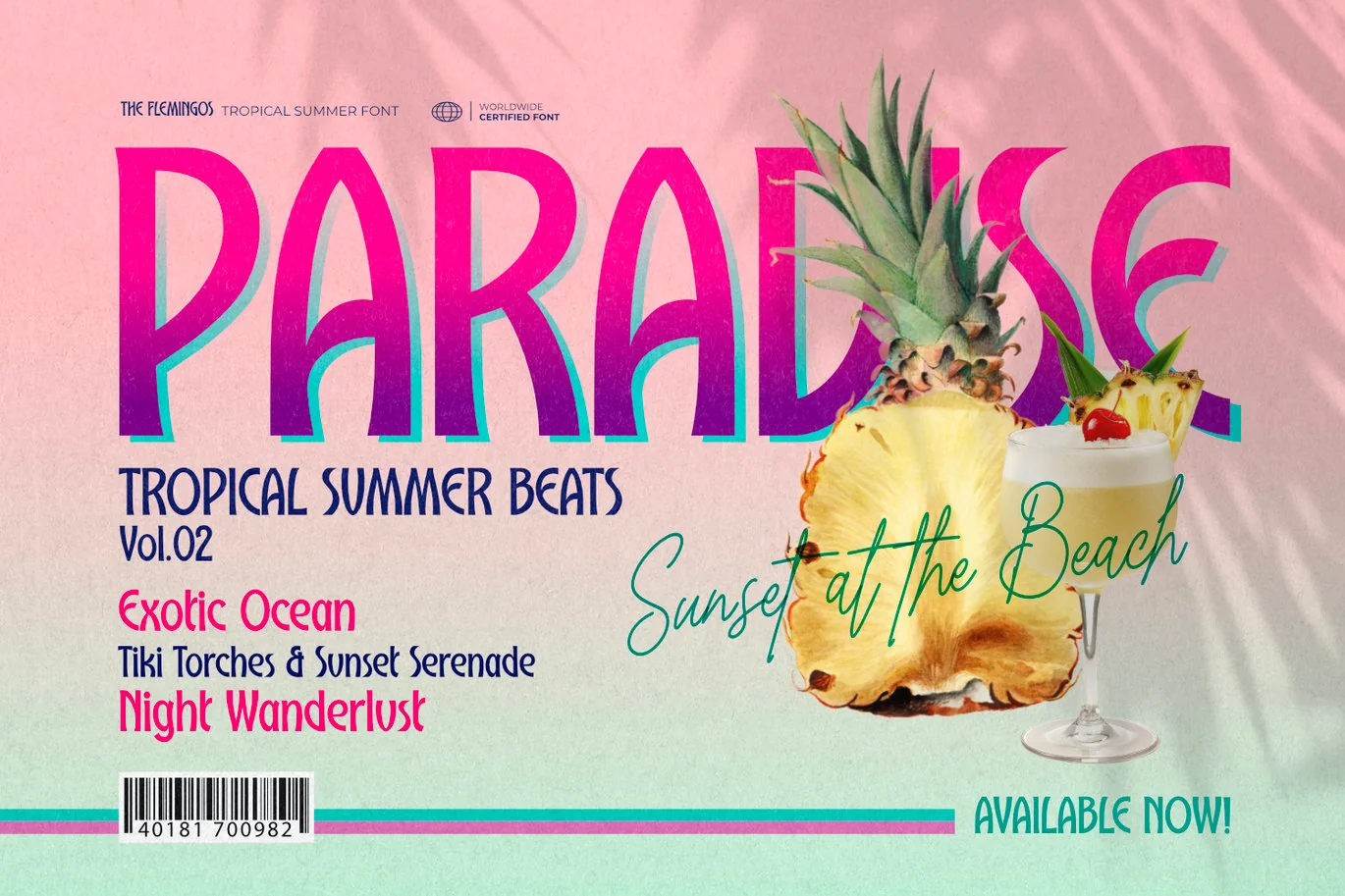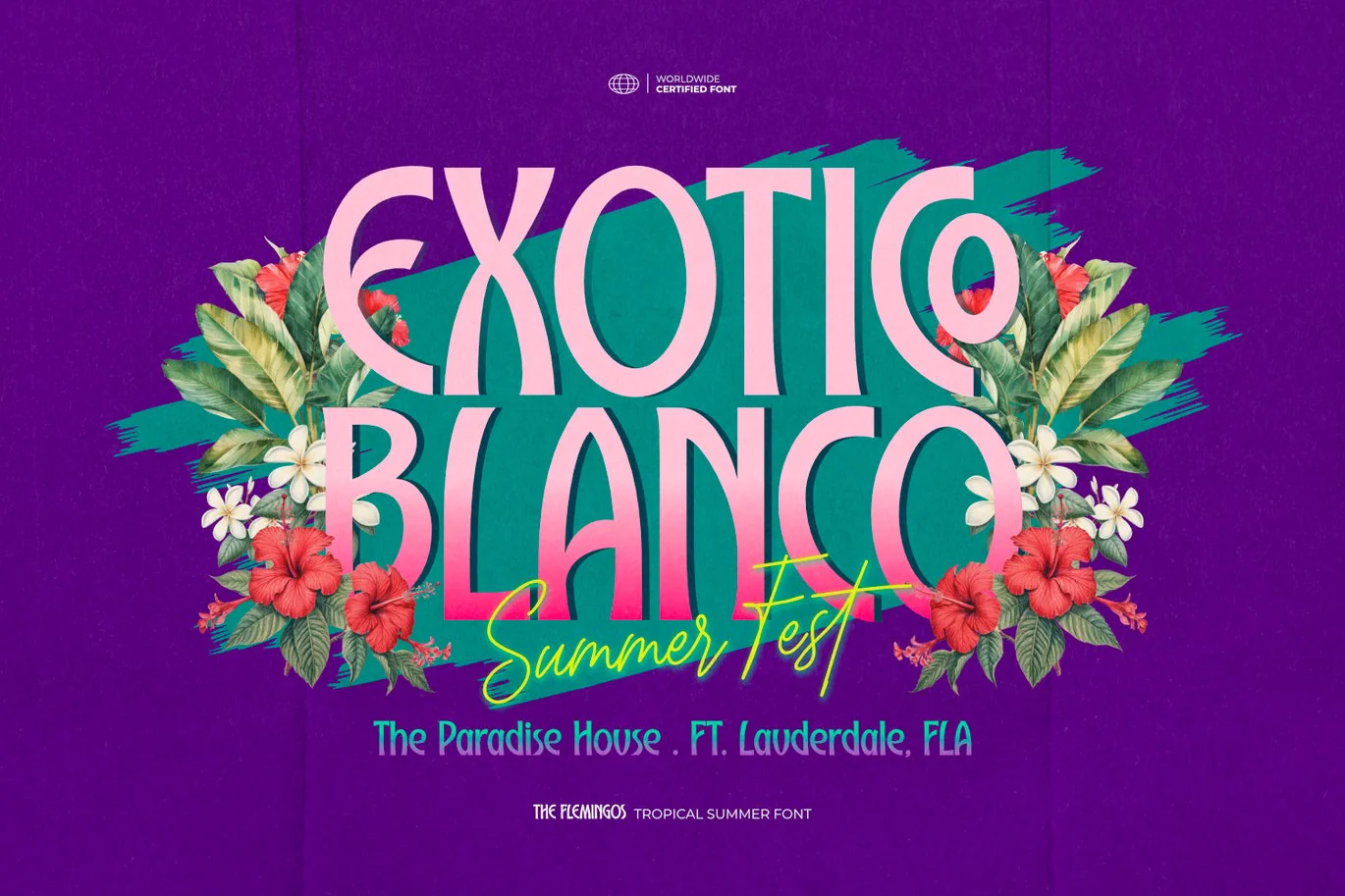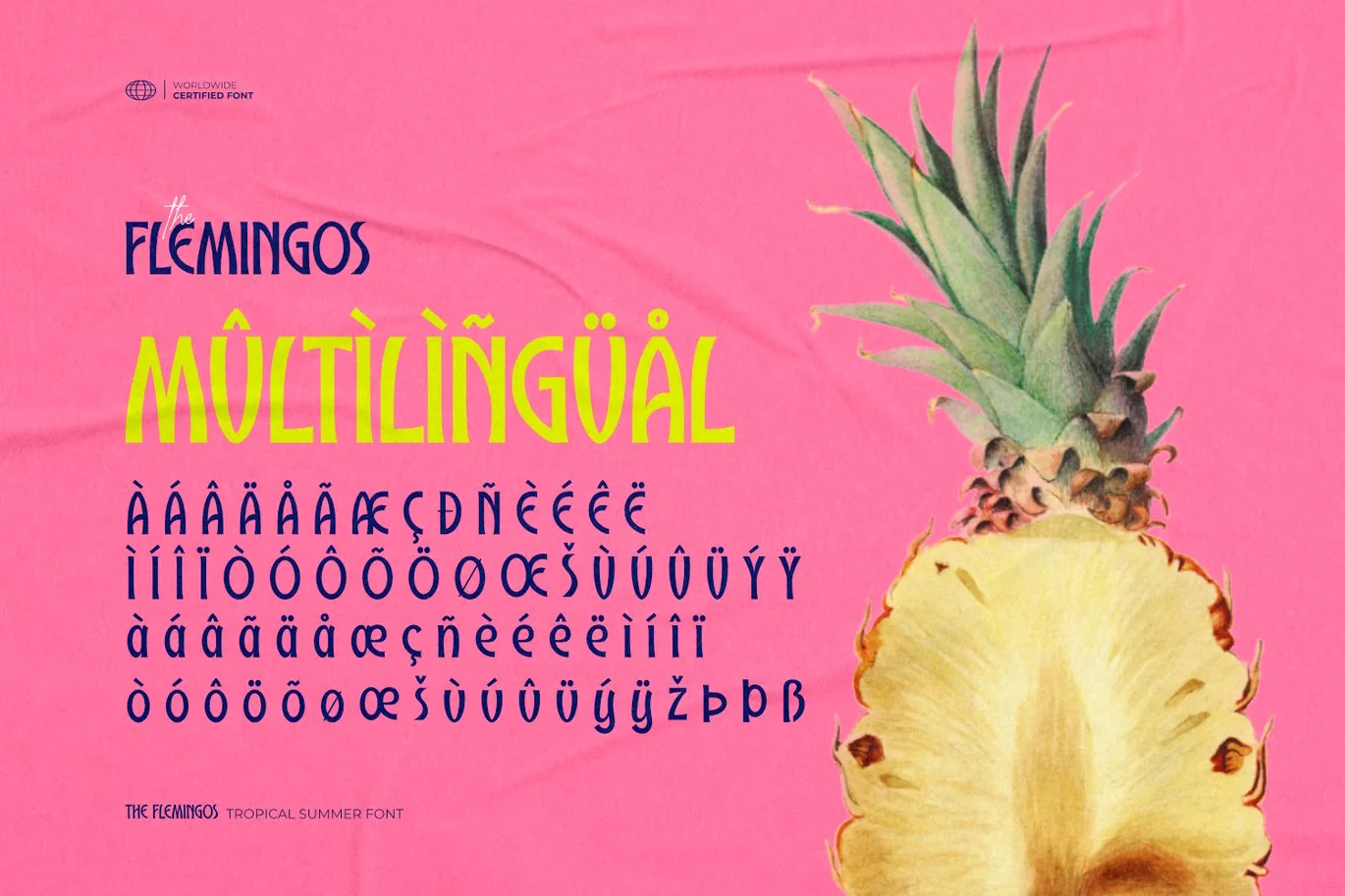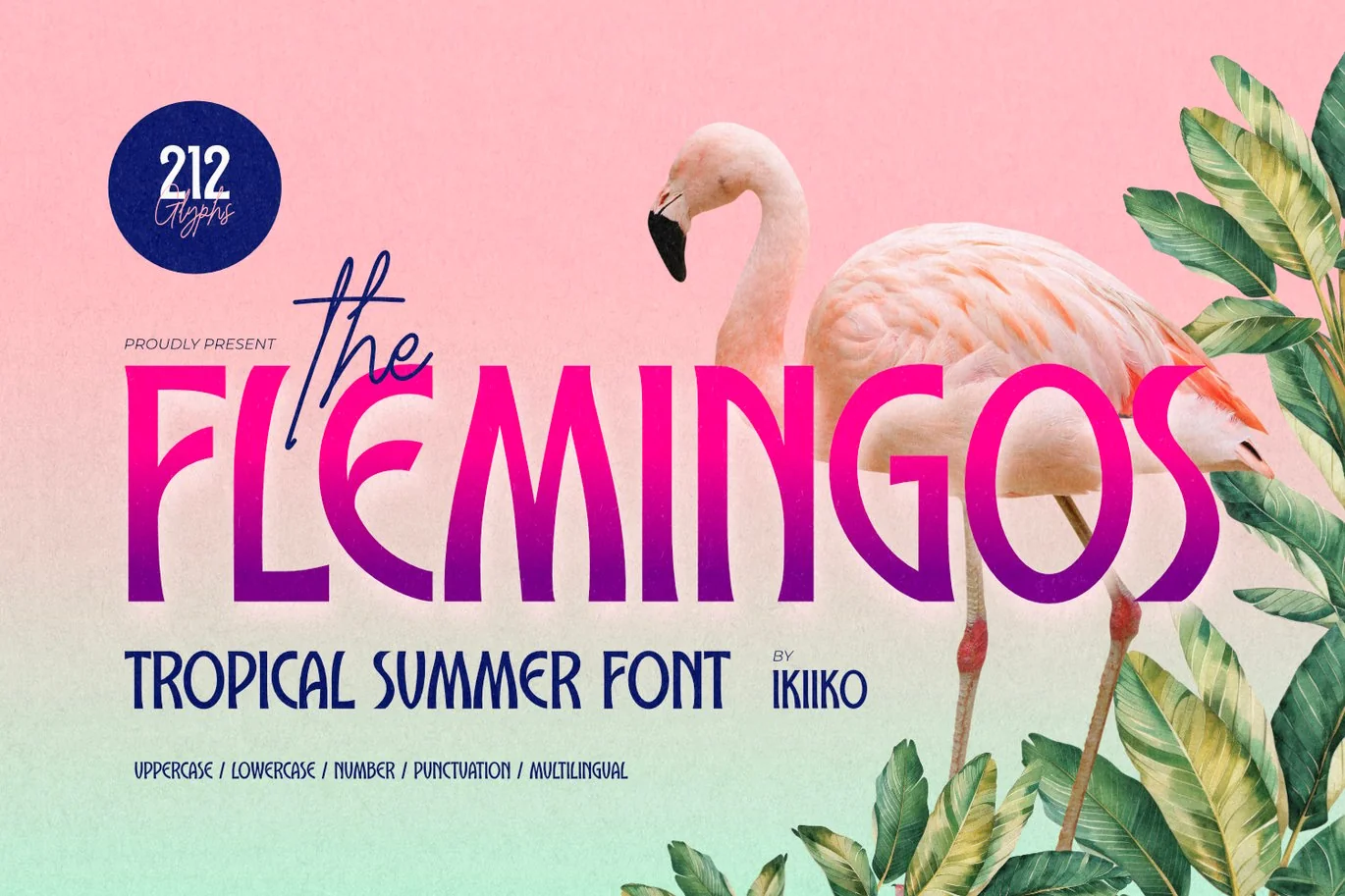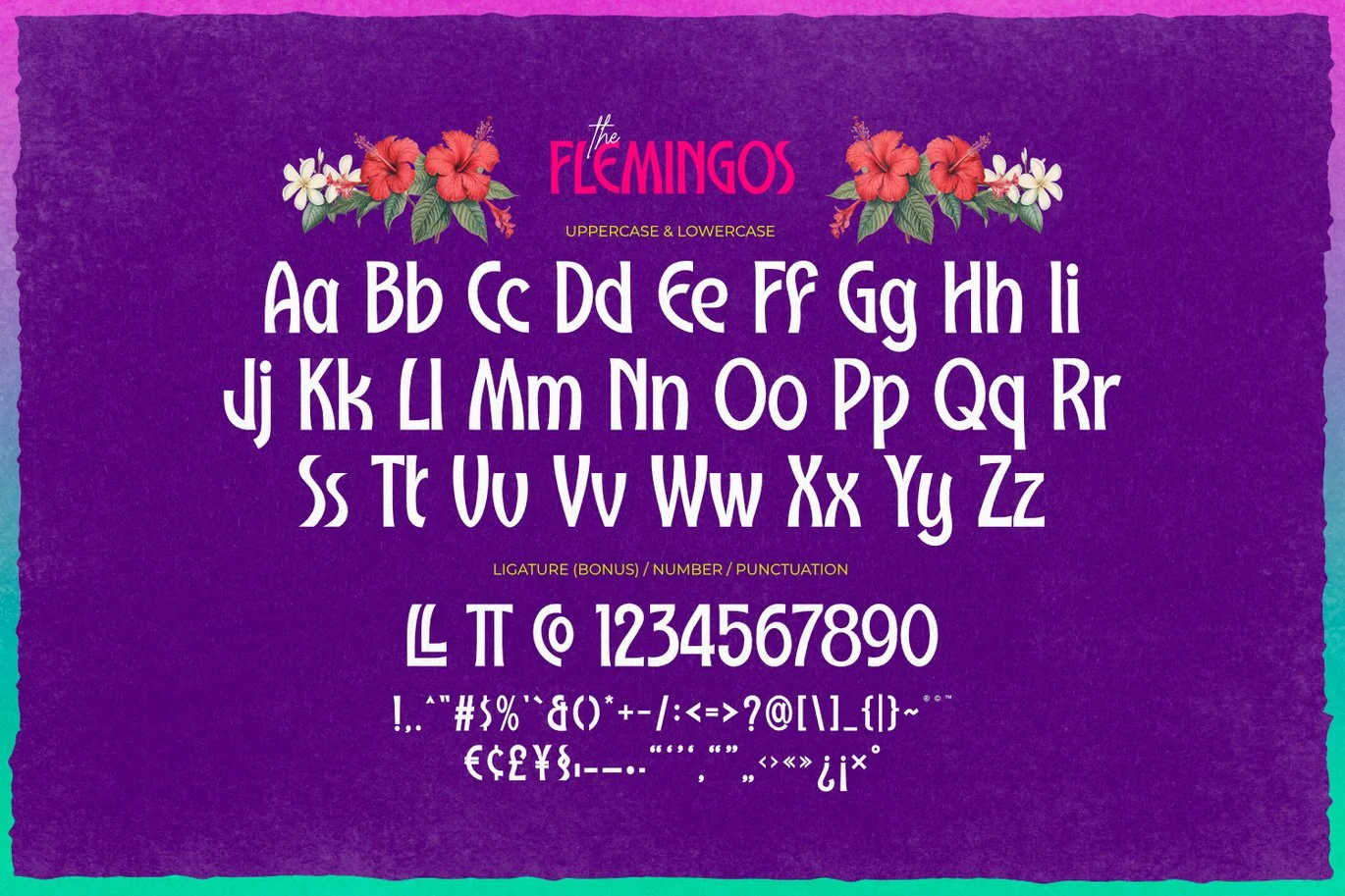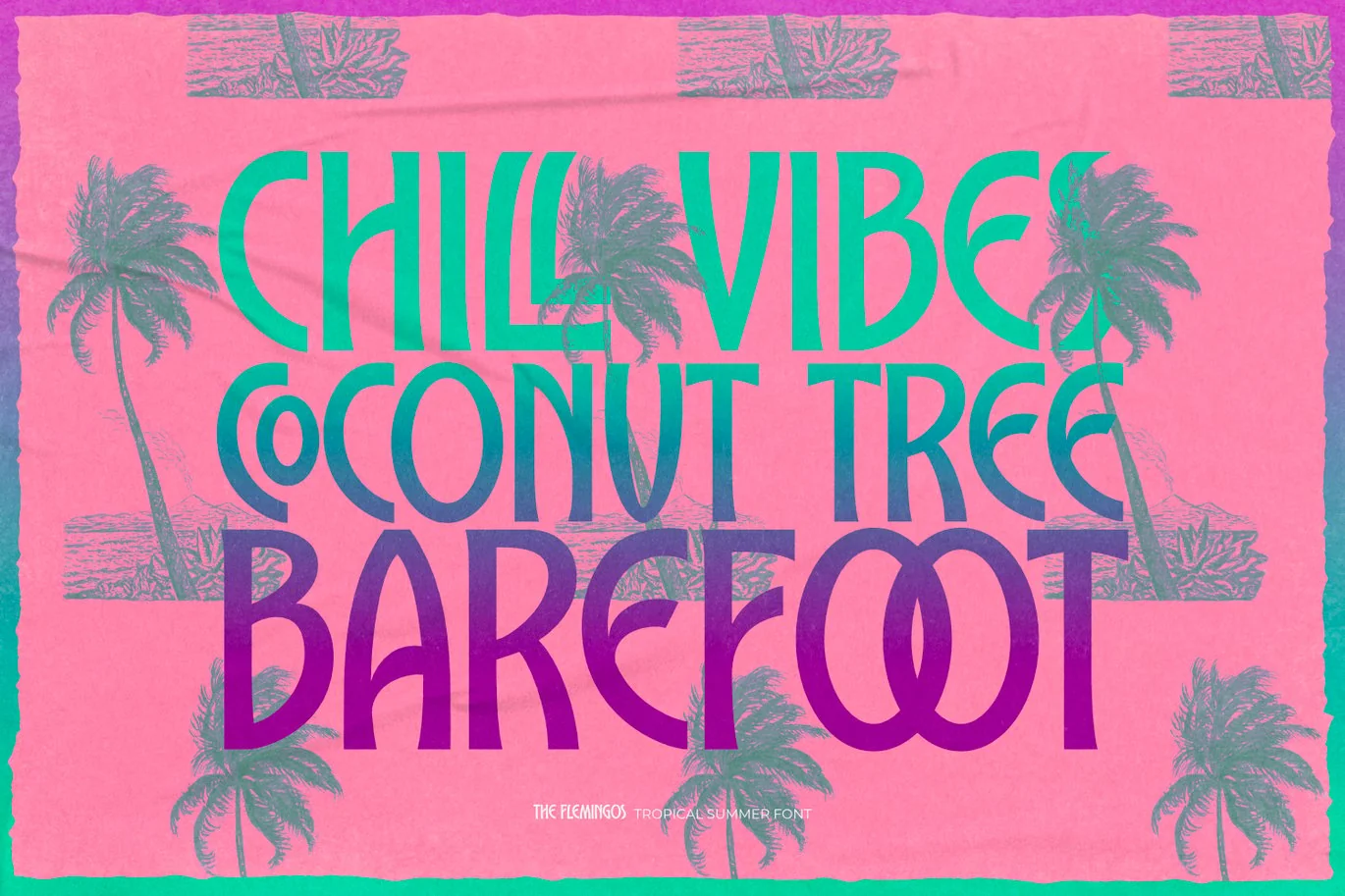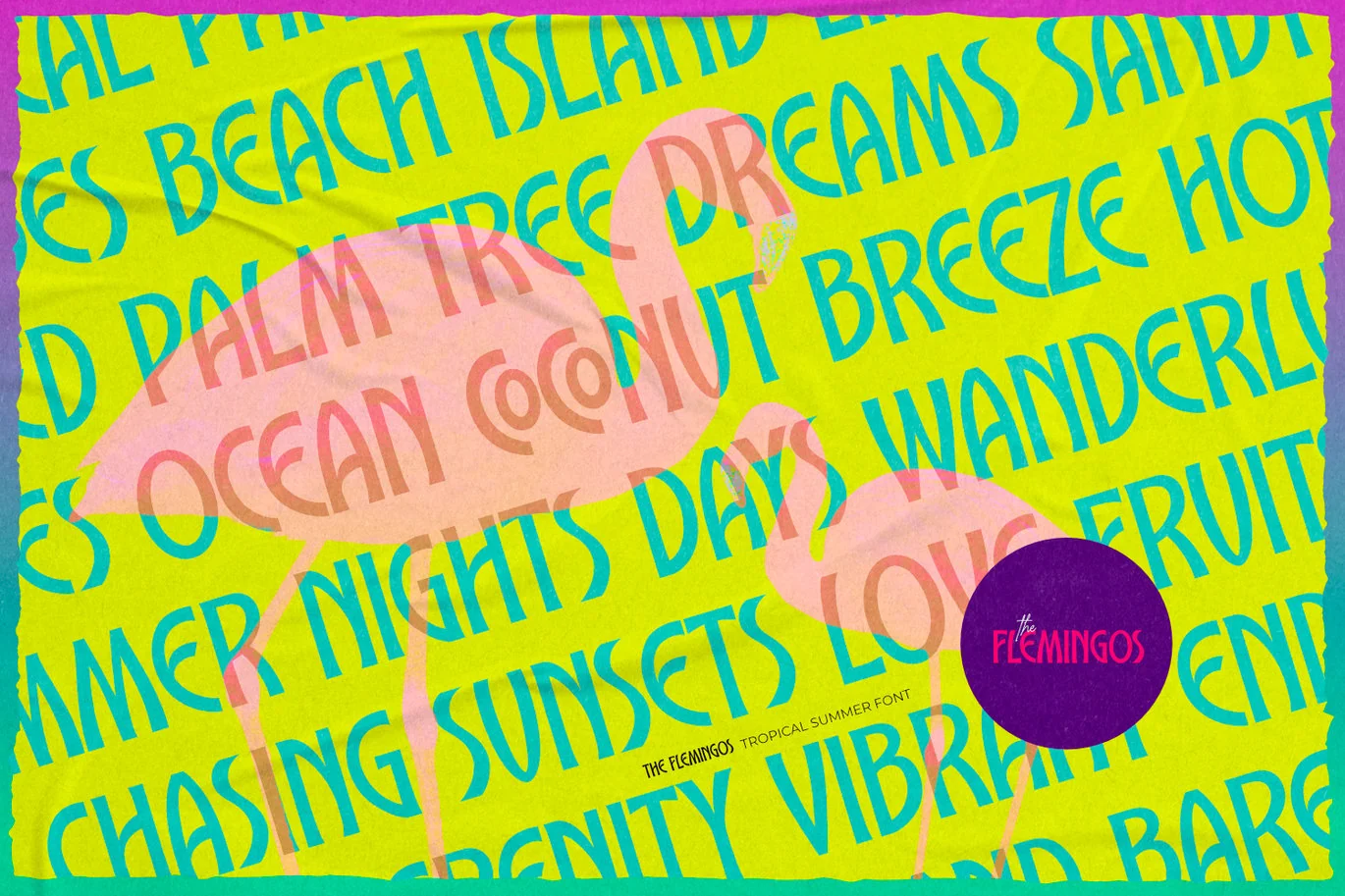
The Flemingos – Tropical Summer Font
Proudly present The Flemingos – Tropical Summer Font, created by ikiiko
Embrace the carefree vibes of the 80s with The Flemingos, a condensed sans serif font that exudes retro charm and tropical allure. This font captures the essence of summer, with its bold yet clean lines reminiscent of exotic beaches, palm trees swaying in the island breeze, and sunsets over sparkling oceans. Perfect for designs that need a splash of nostalgia, from summer party invites to tropical-themed branding, The Flemingos brings the warmth and vibrancy of a retro paradise to life. Let your creativity take a vacation with this tropical-inspired typeface!
This font is very suitable for making a beach party poster, tropical style design, retro 80s vibes design, magazine layout, food & beverages, quotes, or simply as a stylish text overlay to any background image.